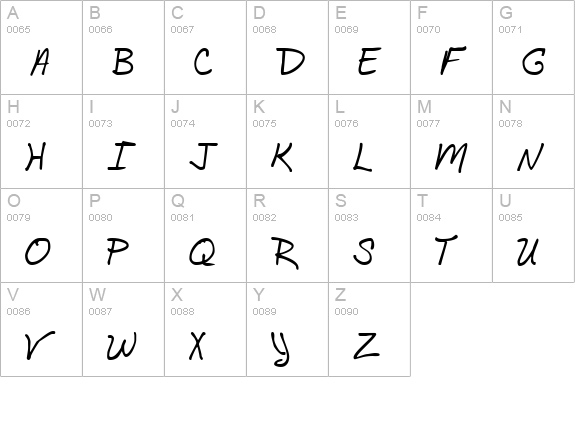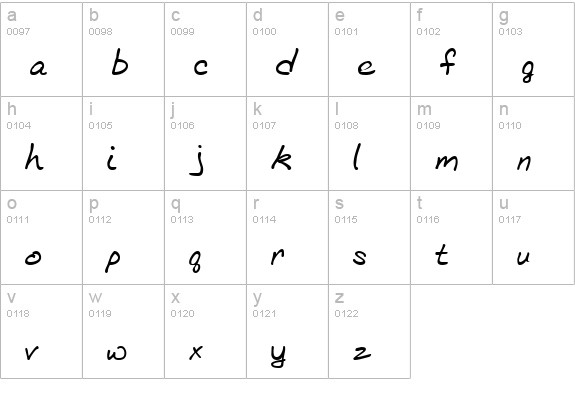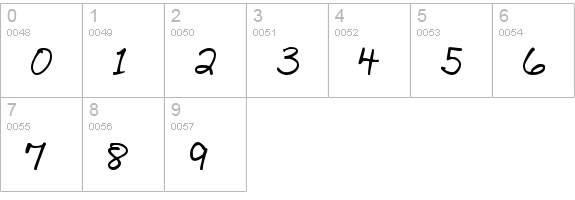
BethHand Regular Font Details
BethHand Regular is the standard, neutral variant in the BethHand typeface family \xE2\x80\x94 well suited to general body text, paragraphs, and standard typographic work.
BethHand Regular font is a charming and elegant typeface perfect for adding a touch of sophistication to your designs. With its graceful curves and clean lines, this font exudes a sense of refinement and class. Whether you're creating invitations, branding materials, or any other project that requires a stylish and timeless look, BethHand Regular is sure to impress. The best part? BethHand Regular font is completely free to download at FontsMarket.com. This means you can elevate your designs without breaking the bank. Don't miss out on this opportunity to enhance your projects with a beautiful and versatile font that will make them stand out from the crowd. Download BethHand Regular today and let your creativity shine!